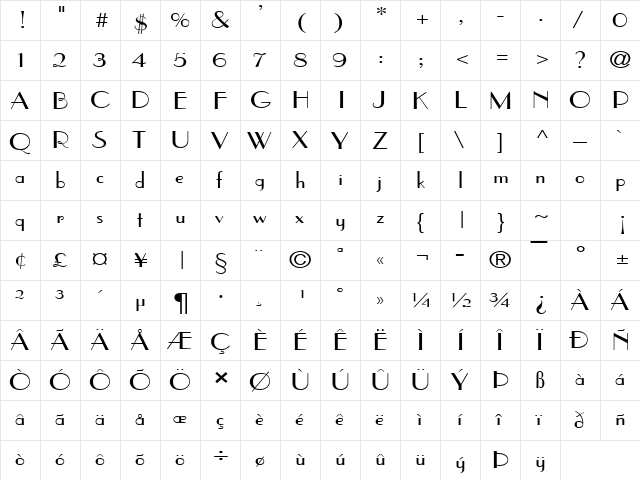
Parisien Wide Normal
Design Context for Parisien Wide Typeface
Parisien Wide is a composed and adaptable typeface that performs quietly and consistently across a wide range of design contexts.
Pro Tip: Use Parisien Wide in both headline and body roles to test its range before committing to a single application.